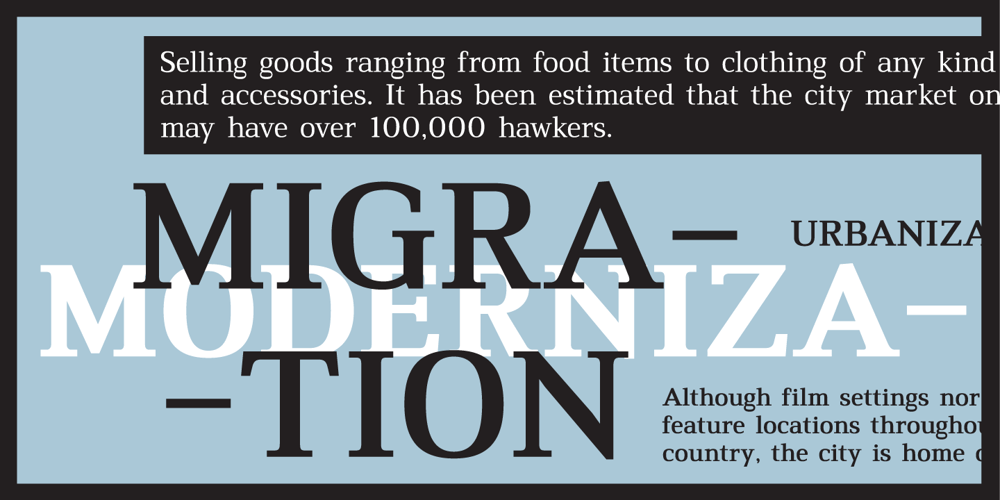
Bangkokean
Bangkokean font
Bangkokean Font Family was designed by Anuthin Wongsunkakon and published by Cadson Demak. Bangkokean contains 3 styles and family package options. This font was originally designed side by side with my first attempt at a semi serif typeface in 1997. The design made it through to full development only a couple years ago when our studio decided to complete the regular weight for a local project here in Bangkok. The face is a traditional serif with narrow stem (somewhat like sans serif) and industrial stroke. A good mix of Bangkok character where you can find Wat (old buddhist temple) next to futuristic high rise. This font was shown in Klingspor-Museum Offenbach, Germany, at a Typographic & Type Design exhibition Schrift in Form 3-26 September 2008.